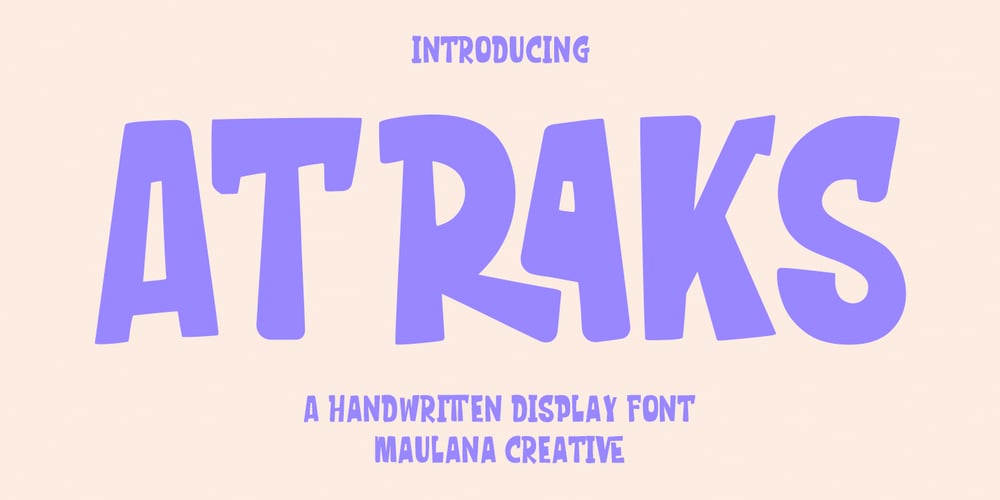
MC Atraks Font Family was designed by Gilang Maulana and published by Maulana Creative. MC Atraks contains 1 styles and family package options. Atraks is a casual handwritten Display font. With medium low contrast stroke, fun character with a bit of ligatures and alternates. To give you an extra creative work. Atraks font support multilingual more than 100+ language. This font is good for logo design, Social media, Movie Titles, Books Titles, a short text even a long text letter and good for your secondary text font with sans or serif. Make a stunning work with Atraks font. Cheers,Maulana Creative